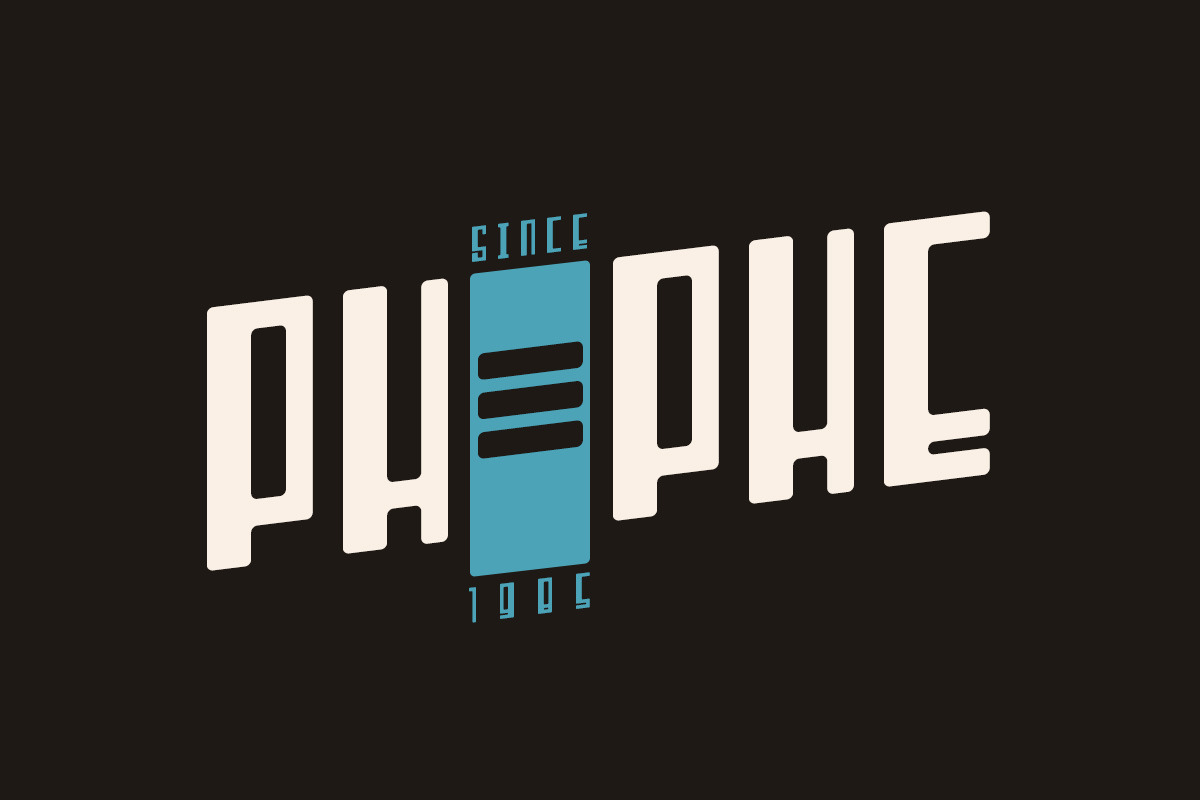
Phephe Vintage Font
Phephe is a fun and vintage font, to simulate your lovely design. Perfect for many different projects: quotes, blog header, poster, wedding, branding, logo, fashion, apparel, letter, invitation, stationery, etc.
Weight: Light and Bold